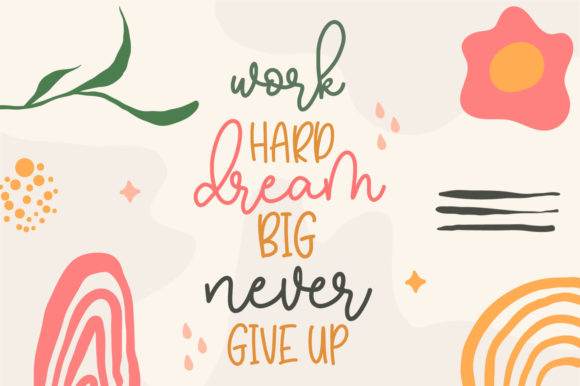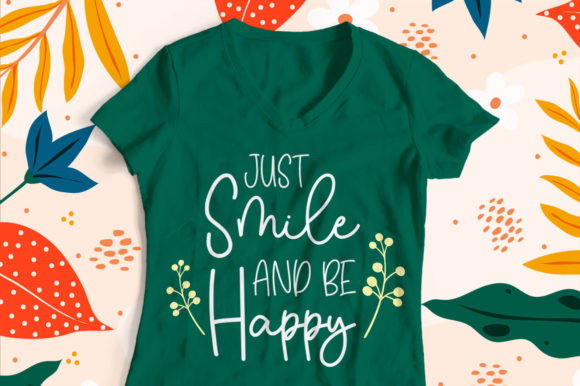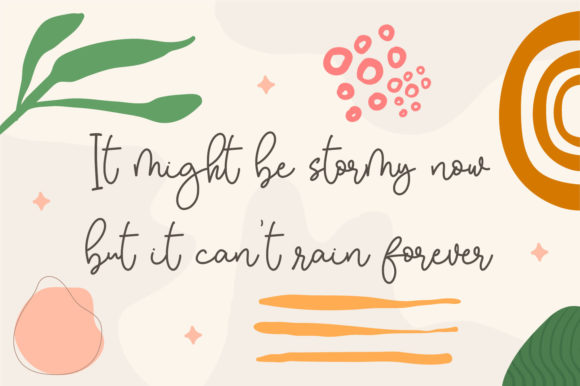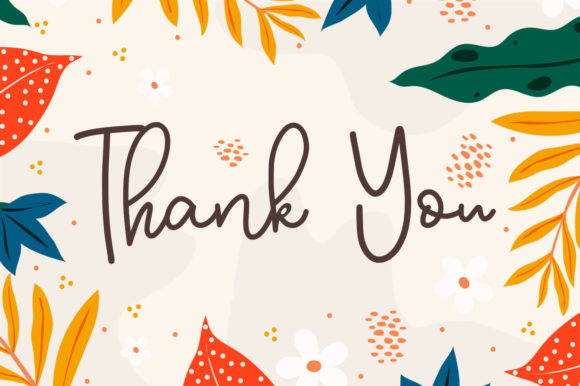
Discover the Timeless Charm of Berkyn Romance Font
As a designer, there’s nothing quite like the thrill of finding the perfect font to bring a project to life. You’re browsing through your font library, and suddenly, you stumble upon the perfect combination of elegance and whimsy. For many of us, that moment is when the magic happens – and it’s exactly what we’re looking for when we fall in love with a font like Berkyn Romance.
This stunning script font is a modern take on traditional romance fonts, offering a unique feel that’s perfect for adding a touch of sophistication to your designs. Whether you’re creating beautiful wedding invitations, gorgeous stationary art, or eye-catching social media posts, the Berkyn Romance Font is sure to inspire you. As a designer, you know how valuable it is to have a versatile font that can elevate your work and make it truly stand out.
- Unique Characteristics: This font features elegant, cursive script with refined flourishes and subtle connections between letters.
Berkyn Romance Font Review
I’ve had the chance to work with the Berkyn Romance Font, and I must say it’s a lovely addition to any designer’s toolkit. ✨ One of the things I appreciate most is its elegant, cursive feel, which makes it perfect for romantic or whimsical projects. It’s also highly customizable, allowing you to fine-tune the font to fit your specific design needs.
- ✨ Beautiful, flowing lines that add a touch of romance to any design
- ✨ Highly customizable, with a wide range of options for adjusting font weight, size, and color
- ✨ Works well in both print and digital designs
However, there are a few limitations to keep in mind. ⚠️ The font can be a bit overwhelming if used in large blocks of text, and it may not be the best choice for projects that require a more modern or minimalist aesthetic. Additionally, the font’s complexity can make it a bit more challenging to work with for designers who are new to custom fonts.
Overall, I think the Berkyn Romance Font is a great choice for designers who are looking to add a touch of elegance and whimsy to their projects. With its beautiful, customizable design and wide range of applications, it’s a valuable addition to any designer’s toolkit.
The Berkyn Romance Font is ideal for designing romantic and elegant materials, such as:
- Love letters and poems
- Valentine’s Day and anniversary cards
- Wedding and engagement announcements
For best results, pair the Berkyn Romance Font with a neutral or pastel color scheme to create a soft and romantic atmosphere.